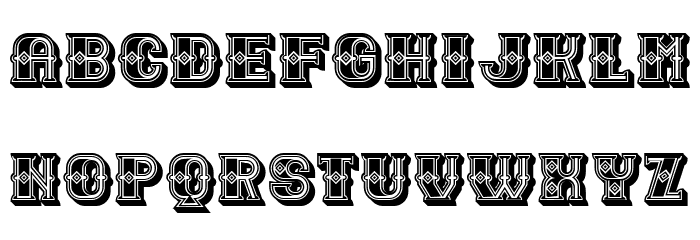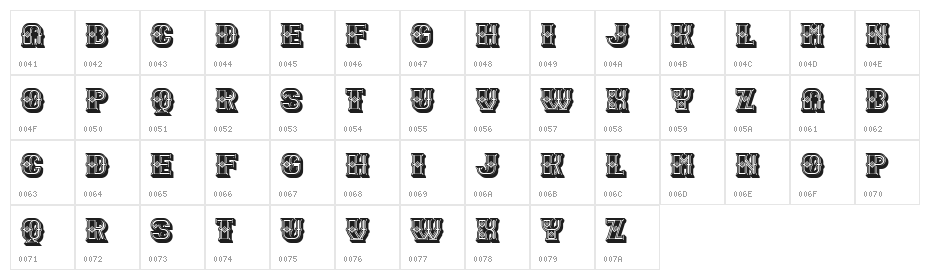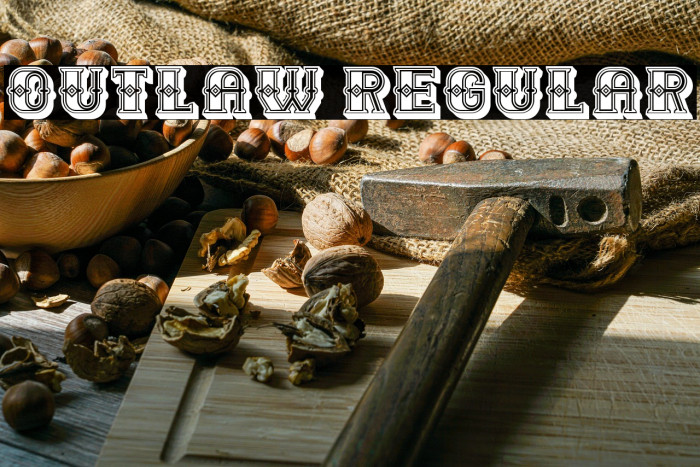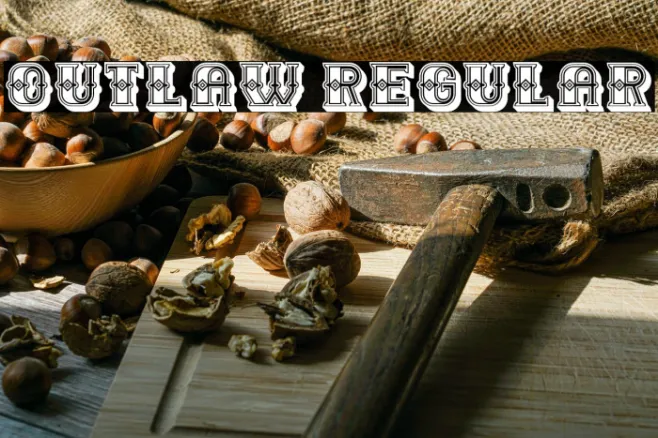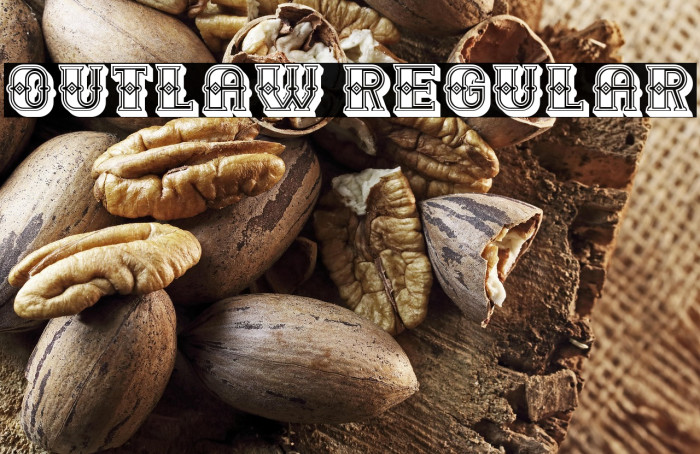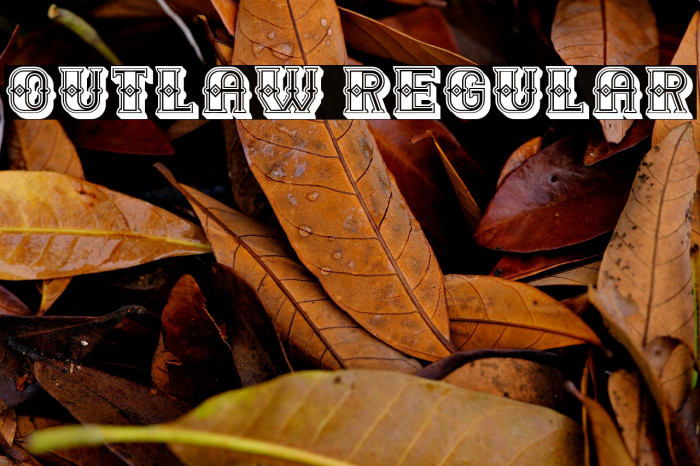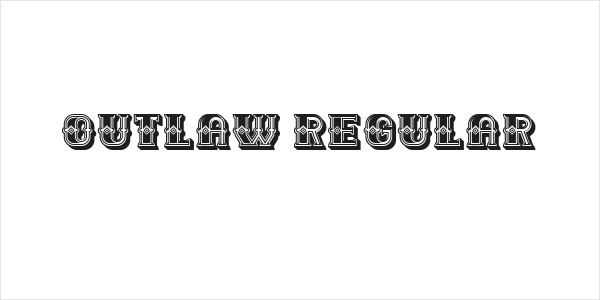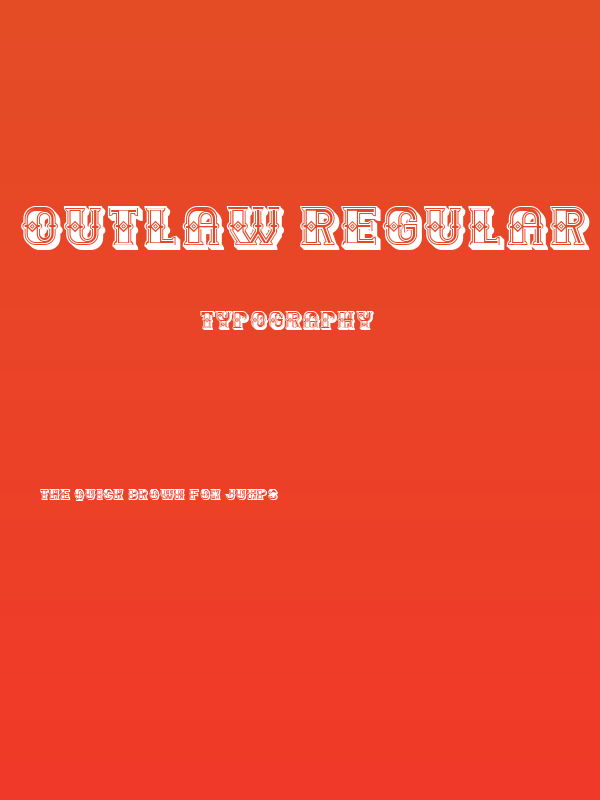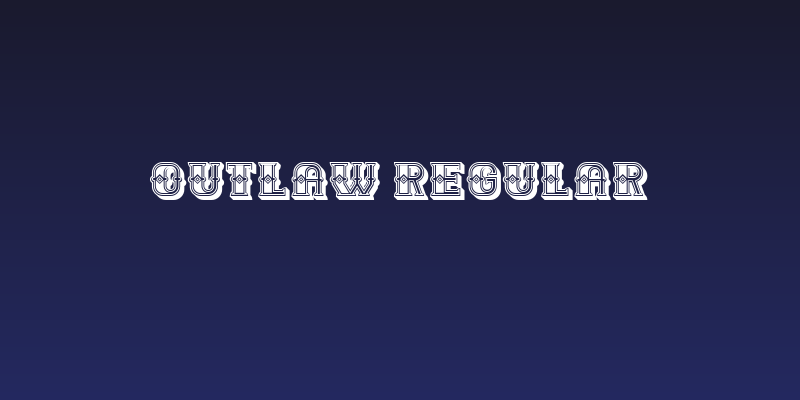
Outlaw Regular Font
Outlaw Regular Description
This font features a bold, decorative style with intricate detailing and a strong presence. The characters are outlined with a thick border, adding a sense of depth and dimension. Each letter is adorned with unique embellishments, giving it a distinctive and ornate appearance. The font's design is reminiscent of vintage Western or circus themes, making it ideal for projects that require a touch of nostalgia or flair. The uppercase letters are uniform in height, and the overall structure is balanced, ensuring readability despite its decorative nature.
| Proposed Projects | Ideal for posters, signage, branding, and any project needing a vintage or Western theme. |